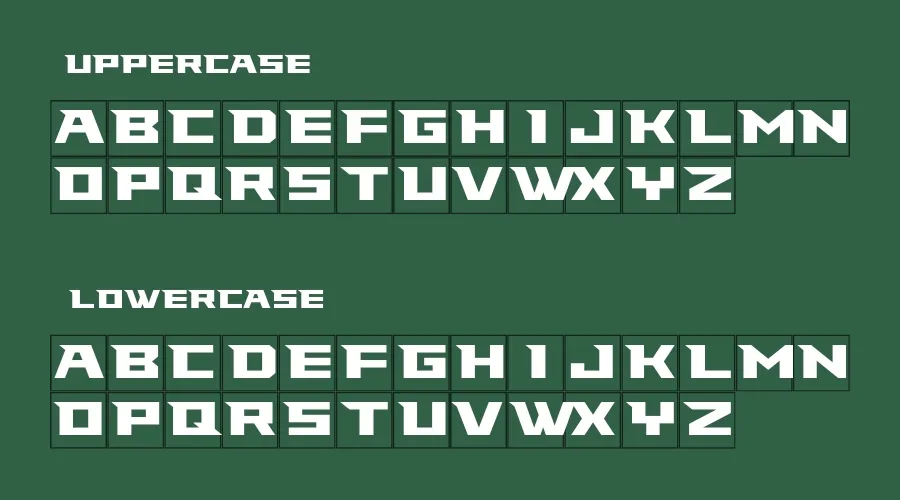
Falcons Font
About Falcons Font
Atlanta Falcons designed Falcons Font it is a Techno text style. This typeface is a great choice for those who are searching for a classic textual style. It is extremely smooth and clear, indeed in tiny sizes.
This typeface moreover has both lowercase characters and capitalized characters, as well as a huge number of ligatures. This typeface helps creators when designing unique fields.
You can use this typeface to create remarkable and eye-catching designs. It is also appropriate for the creation of long and short paragraphs. Also appropriate for artwork and banner design.